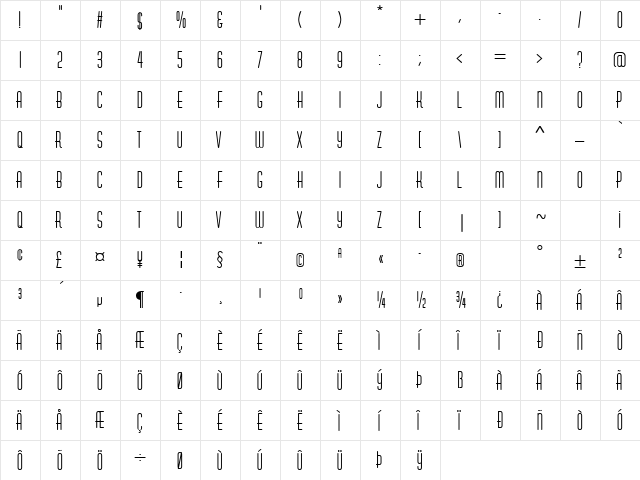
GE Astarte Narrow Caps Regular
Design Context for GE Astarte Narrow Caps Typeface
GE Astarte Narrow Caps offers clean, dependable letterforms without strong stylistic allegiance, making it a practical choice for designers who need flexibility. The condensed width makes it efficient for tight spaces without sacrificing legibility.